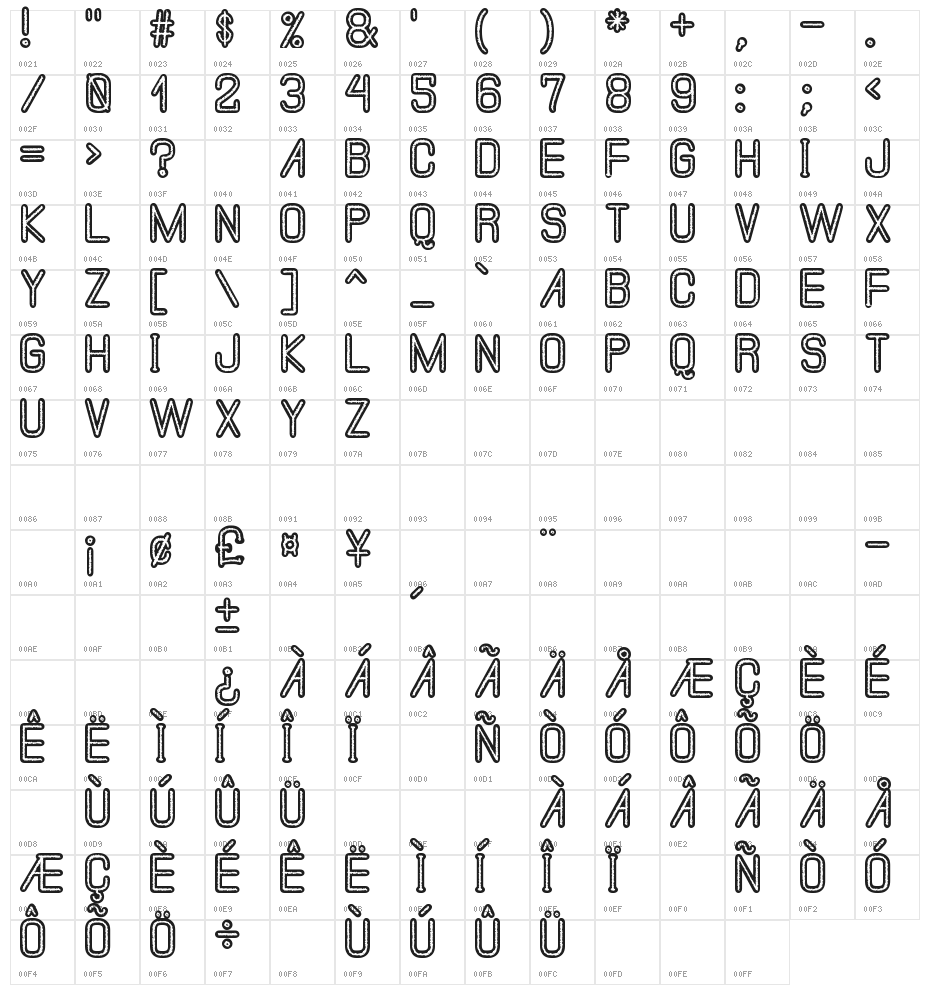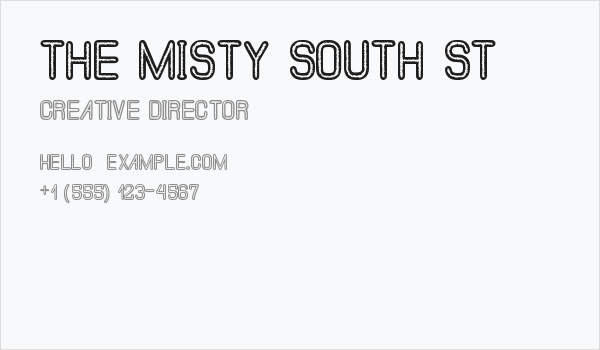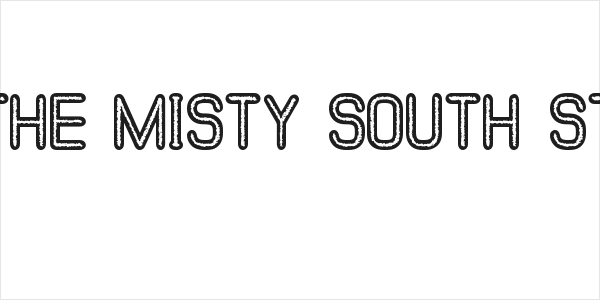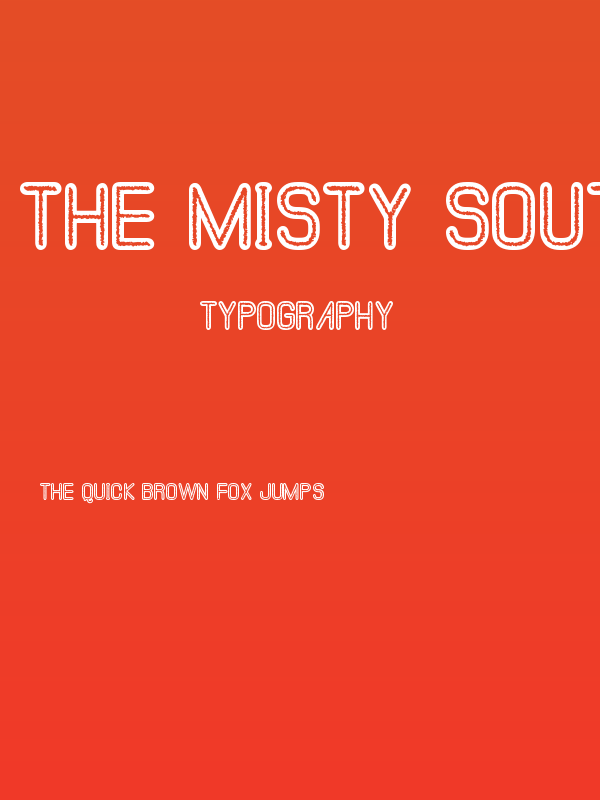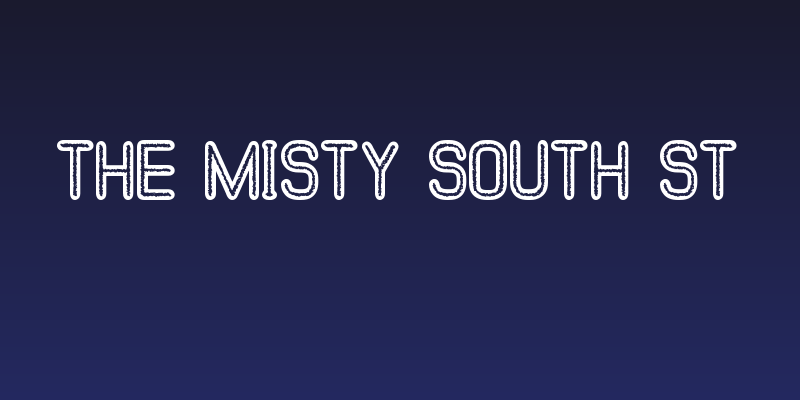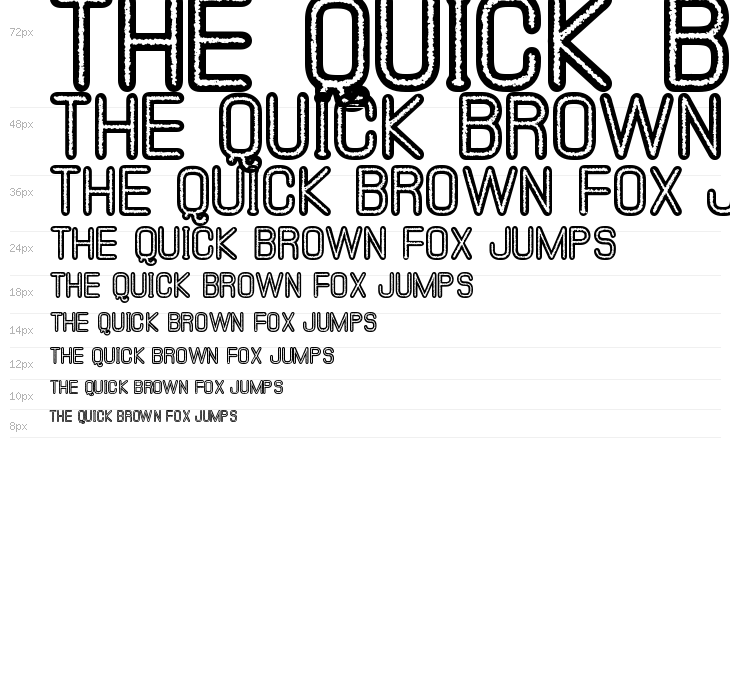
The Misty South St Font
The Misty South St Description
This font features a bold, textured outline that gives it a rugged, distressed appearance. The characters are uppercase and lowercase, with numerals and a variety of special symbols. The style is reminiscent of vintage or retro designs, with a hand-drawn feel that adds character and uniqueness. The letters are evenly spaced, maintaining a consistent width throughout, which enhances readability despite the decorative texture. The font's boldness and distinctive style make it suitable for eye-catching designs.
| Proposed Projects | Ideal for vintage-themed posters, logos, branding materials, and any design requiring a bold, eye-catching typeface. |